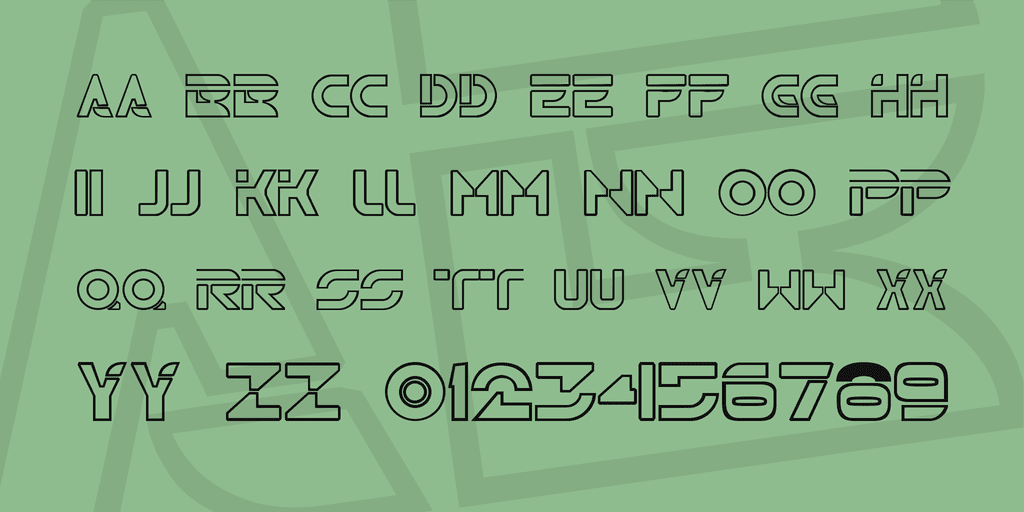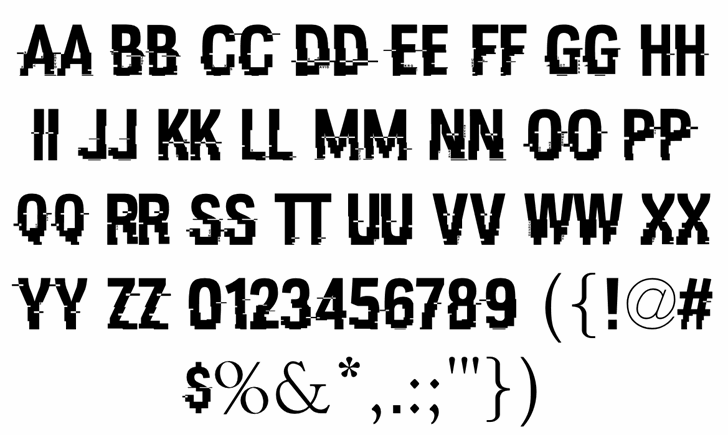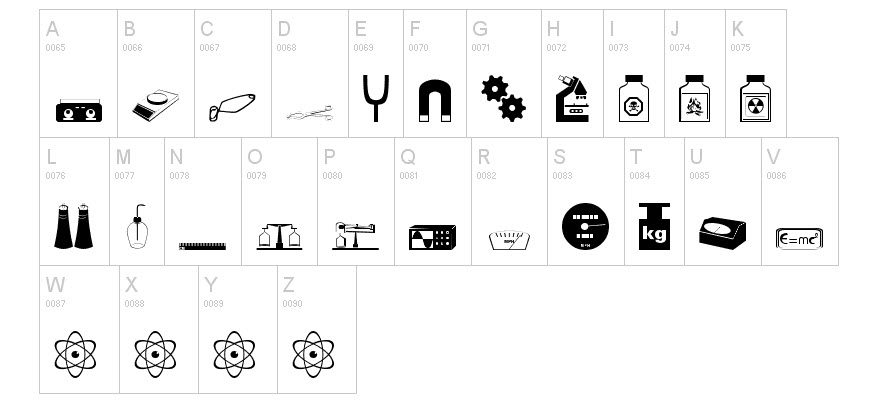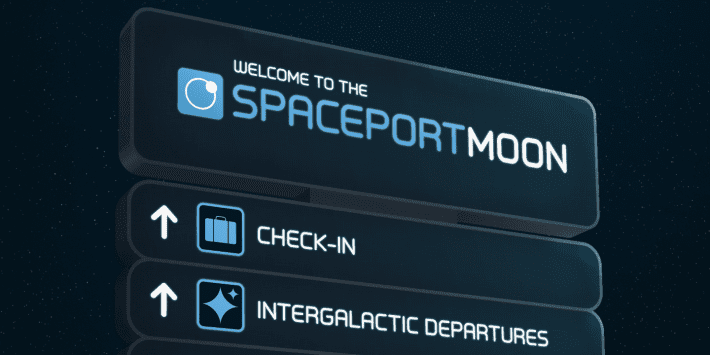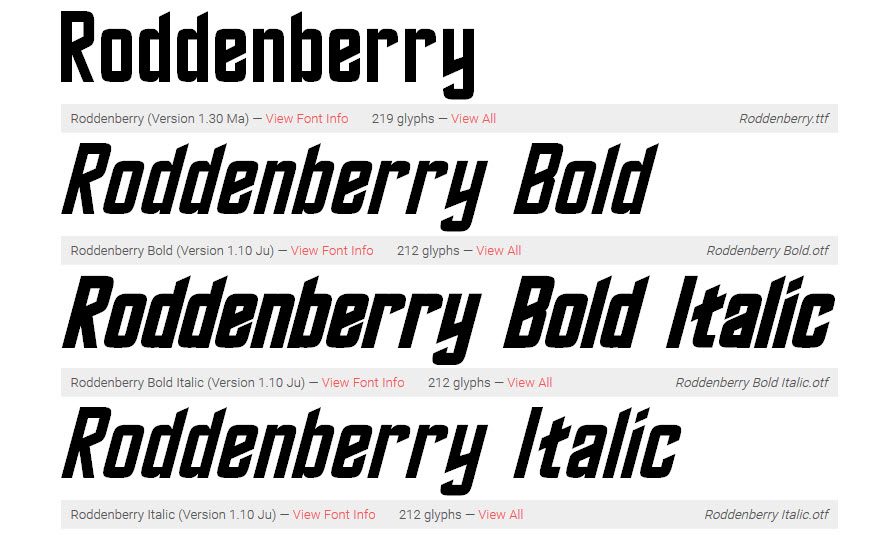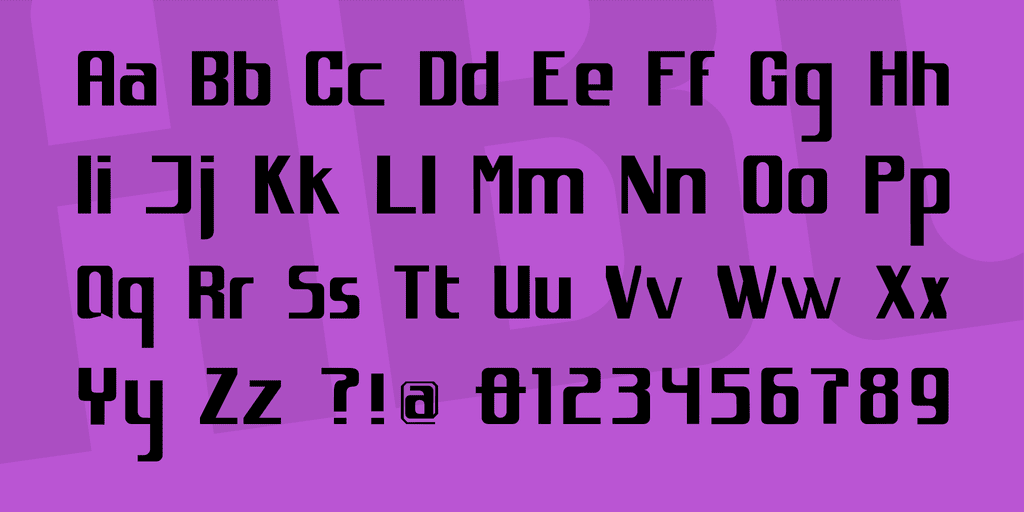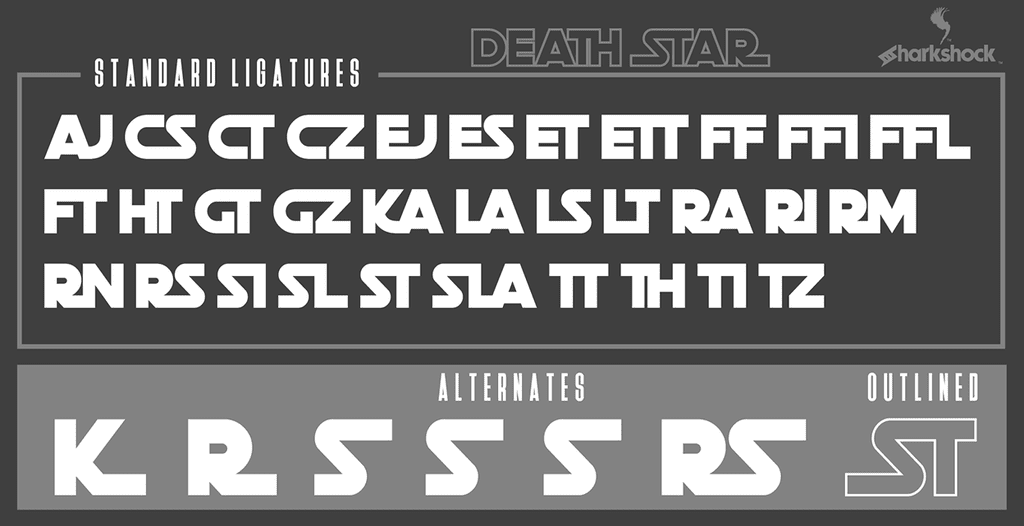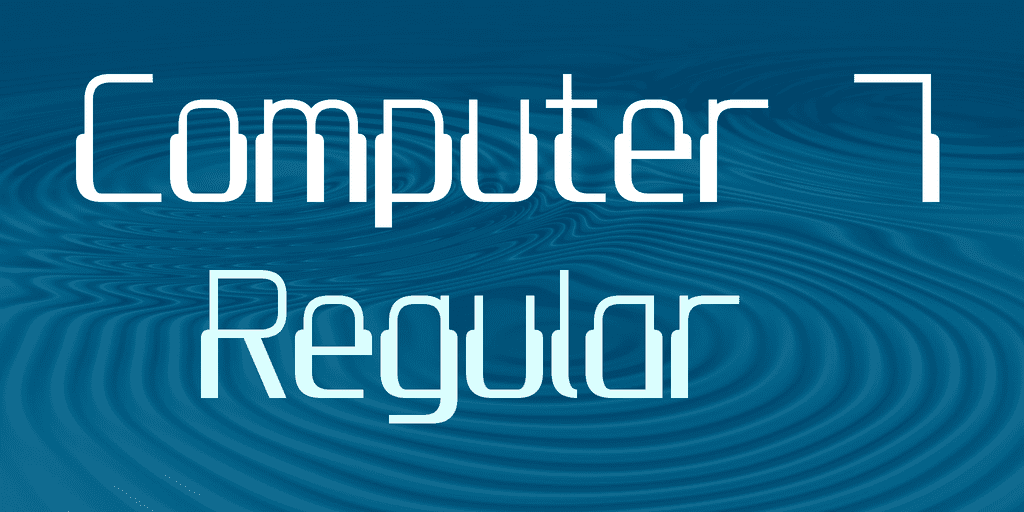
Whether a client asks for a retro-futuristic design for their new site, an organization is promoting a STEM event in their local community, a science-fiction author requests a sleek book cover, or a new research firm needs a cutting-edge website to match their cutting-edge research, STEM and science fonts easily convey a sense of modernism, clean styling, and high-tech know-how. With any of the entries on this list, you will be able to put together the perfect design that makes readers feel right at home. Even if that home is in a galaxy far, far away.
1. TR2N
TR2N is reminiscent of the Disney cult classic Tron. This font is a capitals-and-numbers-only font that isn’t designed for long documents, but for headlines and attention-grabbing design work. The font is well-made and readable (for what it is), but is stylized so you have to keep that in mind. However, when it comes to science fonts (well, science-fiction ones), you can’t get much stronger than TR2N. Best of all is that the font is free for commercial use, so you don’t have to worry about anything in that regard.
2. Science
The aptly named Science font isn’t something you write with. Instead, it’s an icon font. Each letter on the keyboard corresponds to an icon of some kind of scientific symbol that would come in handy in pretty much every situation where you need a science or STEM font. Science includes magnets, gears, hazardous chemicals, scales, microscopes, atoms, and even an E=MC^2 plaque for good measure. (And a lot more than just those, too.) In other words: it’s good stuff that you should download.
3. HACKED
HACKED is almost the quintessential post-modern science font. Representative of the ubiquitous glitchy screen that indicates hacking in many forms of media, the font is well-designed and no matter what words or phrases you put together, always remains legible. The collection includes a number of symbols (and numbers, too). Though only two of the symbols have the signature hackey-glitch design. The hashtag and dollar-sign being the two. You can download HACKED at no cost. On top of that, you can freely use it in commercial projects.
4. Primus
Primus is a font at home in any design or document that needs a futuristic slant. Great for both headlines and copy text, Primus is spaced well, has rounded edges on each character, and has kerning that utilizes whitespace effectively. It is perfect for signage in the real-world to advertise STEM events or in science-fiction media of all types. Primus is kind of the perfect science font for showing the clean and sleek future we all kind of hope is ahead of us.
5. Roddenberry
Modeled after the original Star Trek title font, Roddenberry deserves a spot on every computer even thinking about using a STEM-related font.
6. spacejunk:XL
When you need a font that both looks futuristic and slightly vintage at the same time, spacejunk:XL is a good option. A simple font, spacejunk:XL isn’t a monospaced font, so you can use it to make dynamic displays that attract readers’ attention without having to dig deep into Photoshop or Illustrator’s fine-tuning.
7. BPmolecules
You can’t get much sciencier than BPmolecules. Anyone who looks at the font immediately recognizes the STEM overtones being conveyed to them. There are no lower-case glyphs in the collection, but if you’re using a font that mimics (and stylizes) molecular structure, you might not be so concerned with such things. You can use the font in commercial projects thanks to Creative Commons licensing, and actually includes Greek and Coptic glyphs that give you a lot more utility out of the typeface. You definitely want these 41 glyphs in your library.
8. Death Star
STEM and Science FontsA long time ago, in a galaxy far, far away…
Sorry, we couldn’t resist. However, if you want a science font to evoke the Star Wars nostalgia in your audience, Death Star is the way to do it. One of the most interesting features of Death Star is the included ligature characters that give the vintage movie posters their iconic feel. The font is free to download; however, with a $15 donation (or purchase of a commercial license), you gain access to not only the regular version (blocked in), but the outline form as well. That is not a bad price for what amounts to two separate fonts that can really liven up any design that you want to be immediately recognizable.
9. Computer 7
Computers in the 1980s had a unique styling for their typefaces. It wasn’t continued in later generations of computers (by default at least), but you can revisit the memories of the Apple IIe and Commodore 64 using Computer 7. Originally displayed in pixels, you get a lot more versatility out of Computer 7. This font is fantastic at creating headlines and large text displays that need to evoke retro computing, but because of its origins in actual computing for day-to-day use, you can very easily compose legible long-form documents in it. However, we suggest that you stick to more modern fonts for anything more than blocks of copy. Computer 7 can be downloaded for free for home use, but you will need to purchase a $24.95 license if you intend to use it commercially. It also comes with upper and lower-case characters, numbers, and symbols.